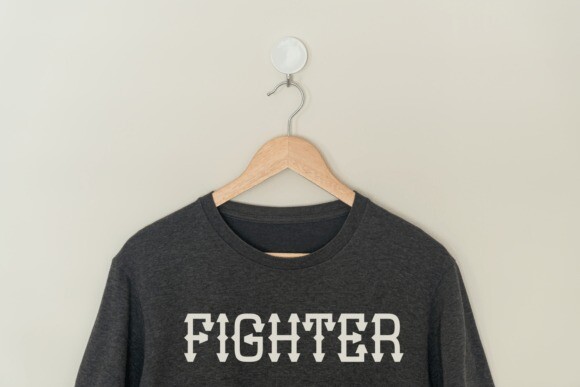
Increase Font
Designer: Creative Fabrica Fonts
Increase Font is a blackletter font with a decorative twist, combining the boldness of traditional Gothic type with intricate ornamental flourishes. It’s perfect for luxury products, artisan goods, or brands that need a premium, crafted look.